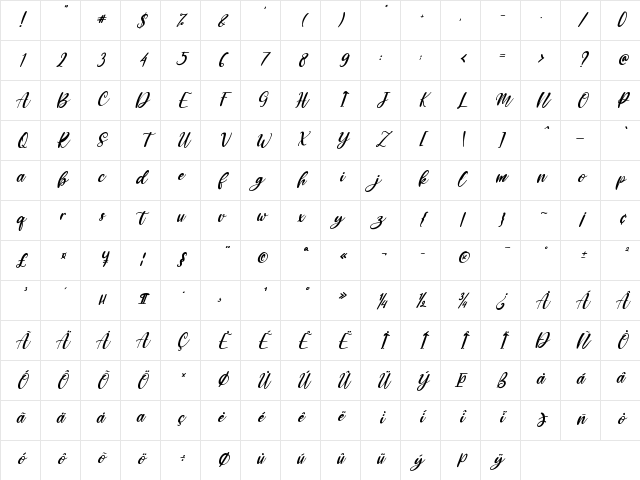
Pather Times Italic is a composed and adaptable typeface that performs quietly and consistently across a wide range of design contexts. The slanted form adds forward momentum and visual energy.
Pro Tip: Use Pather Times Italic for emphasis, pull quotes, and subheadings where its slanted energy can add rhythm to the layout.